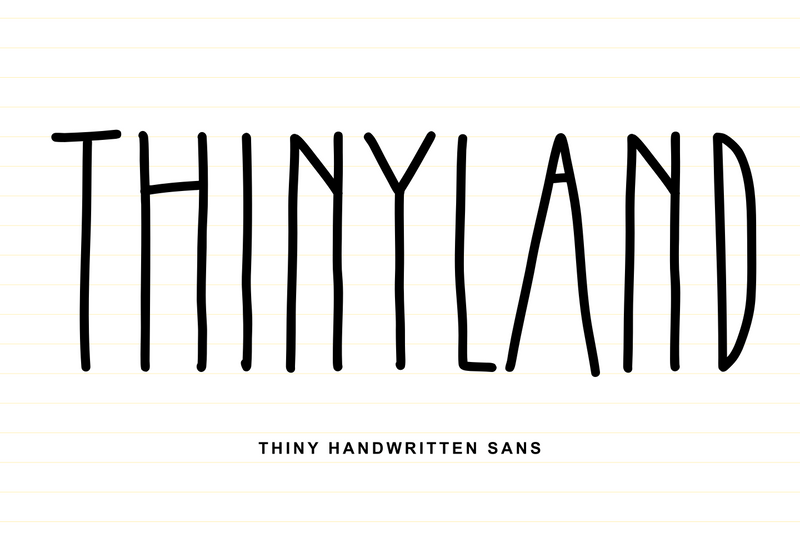
Thinyland
Thinyland is a thin and condensed handwritten sans font created for clarity with a subtle personal touch. Its narrow proportions and light strokes give it a tidy, efficient look while still feeling human and approachable. The handwritten influence is gentle and controlled, making the font neat rather than casual.
Designed to save space without sacrificing style, Thinyland works perfectly for notes, captions, planners, minimal branding, UI text, and modern layouts. When you need a handwritten sans that feels slim, clean, and quietly expressive, Thinyland offers a refined solution with character.